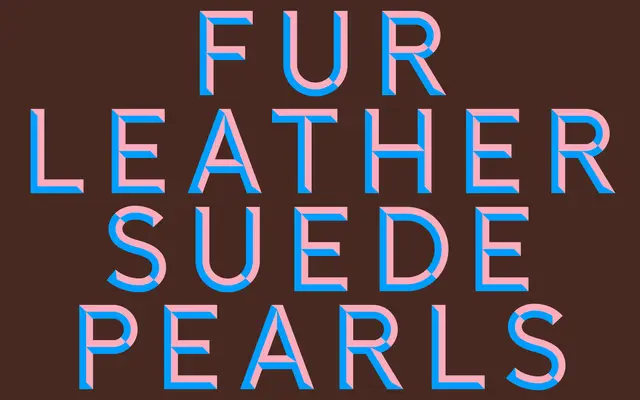
A display typeface from Playtype whose theatrical naming hints at a performative, character-driven design.
Playtype's Faux carries a name that nods to performance and artifice, suggesting a typeface built around a strong visual personality rather than neutral utility. The sparse page copy leans into a cinematic metaphor, framing the design as something that draws you back through sheer character. Details on weights and language support are not disclosed on the product page.
The name and the brief, theatrical framing suggest a display typeface with a performative or decorative character, though the page content is too sparse to confirm a precise subcategory with certainty.